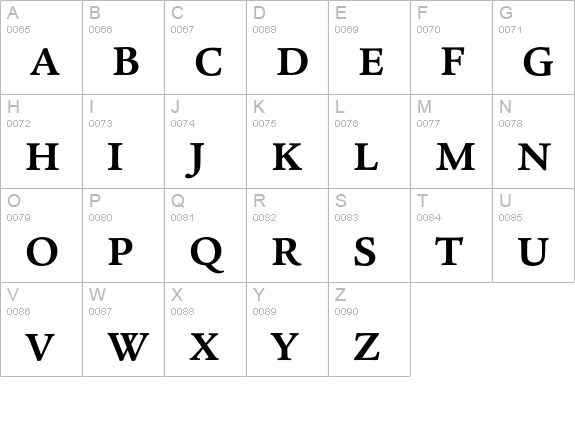
LegacySerifEF-Bold is a strong, high-contrast variant in the LegacySerifEF typeface family \xE2\x80\x94 well suited to headlines, attention-grabbing titles, and strong calls-to-action.
LegacySerifEF-Bold is a timeless and elegant font that effortlessly combines the classic beauty of serif typefaces with a modern twist. Its bold weight exudes confidence and strength, making it perfect for attention-grabbing headlines, titles, and logos. With its refined and sophisticated letterforms, LegacySerifEF-Bold adds a touch of professionalism and sophistication to any design project. Its well-balanced proportions and legible characters ensure readability across various mediums, from print to digital. What sets LegacySerifEF-Bold apart is that it is not only visually stunning but also freely available to download at FontsMarket.com. This means that designers and typographers alike can easily access this remarkable font without any cost, allowing them to enhance their creations without breaking the bank. Whether you are working on a branding project, editorial design, or any other creative endeavor, LegacySerifEF-Bold is a versatile typeface that will elevate your work to new heights. Its timeless appeal and modern flair make it a must-have in any designer's toolkit. Download LegacySerifEF-Bold for free at FontsMarket.com and unlock the potential of this remarkable font. Let your creativity flourish and make a lasting impact with the power of LegacySerifEF-Bold.